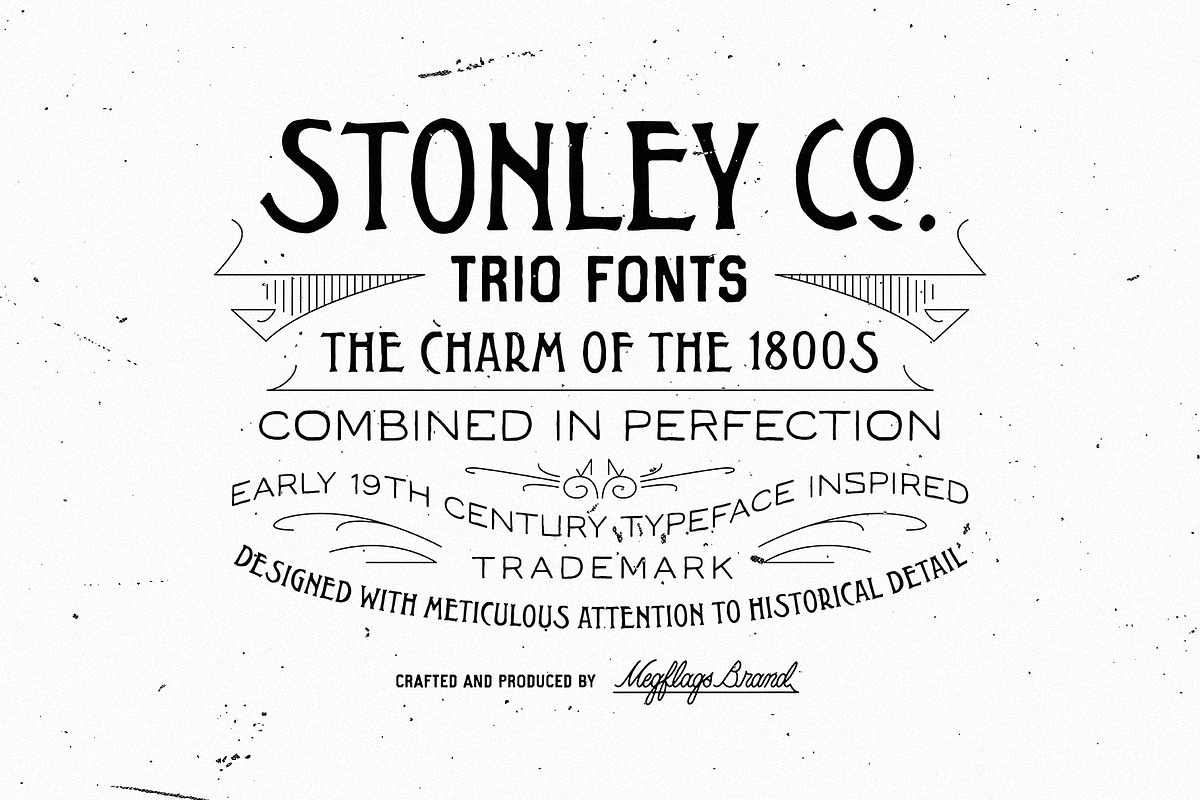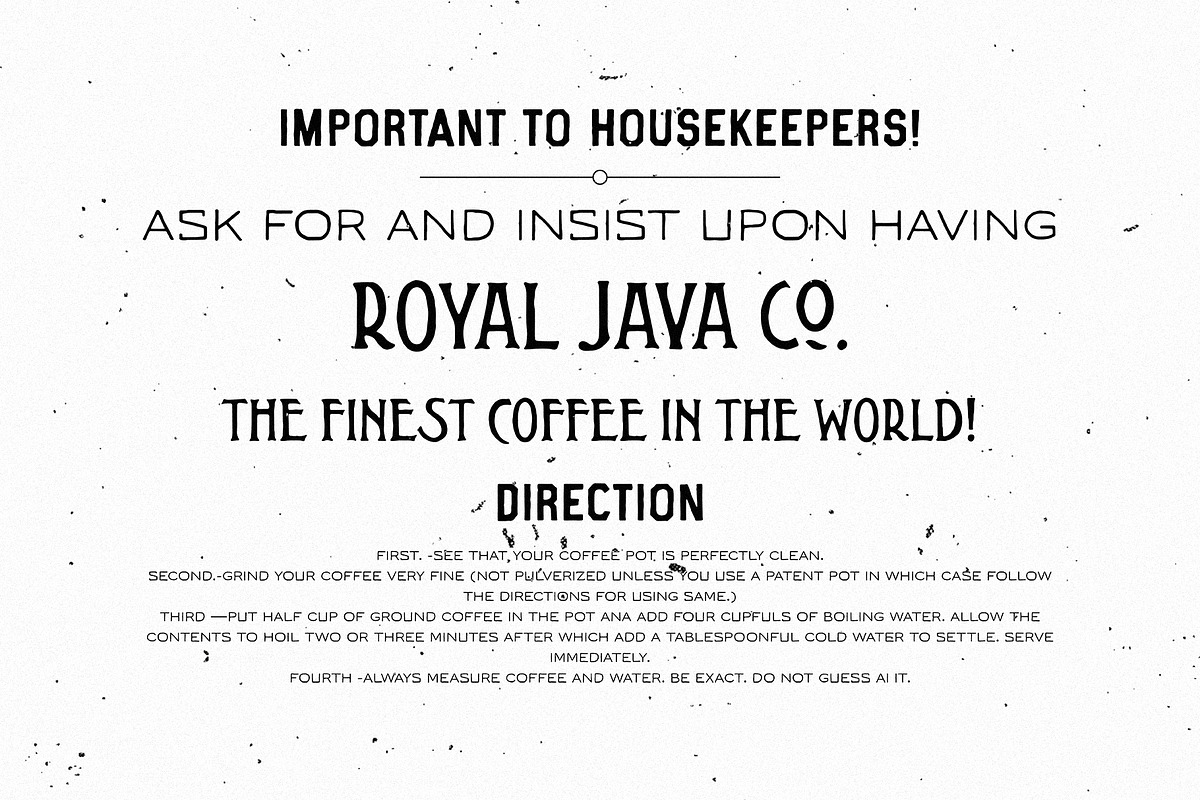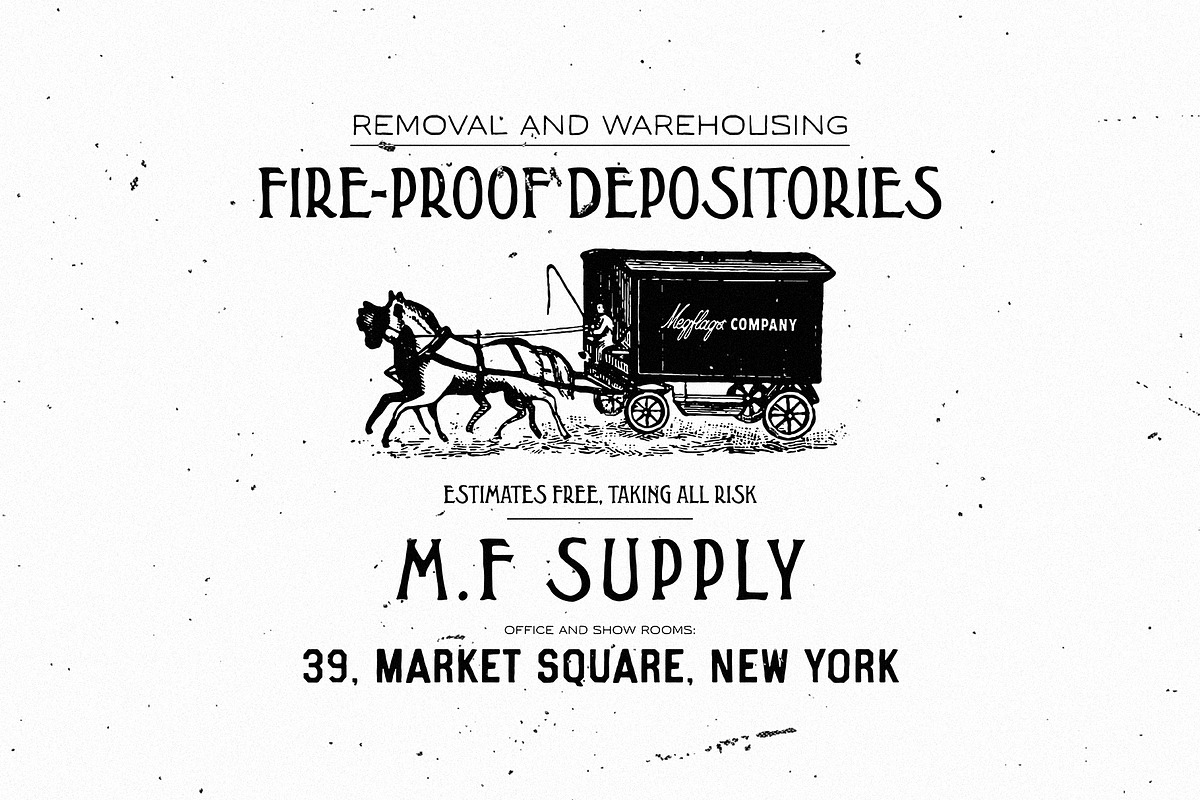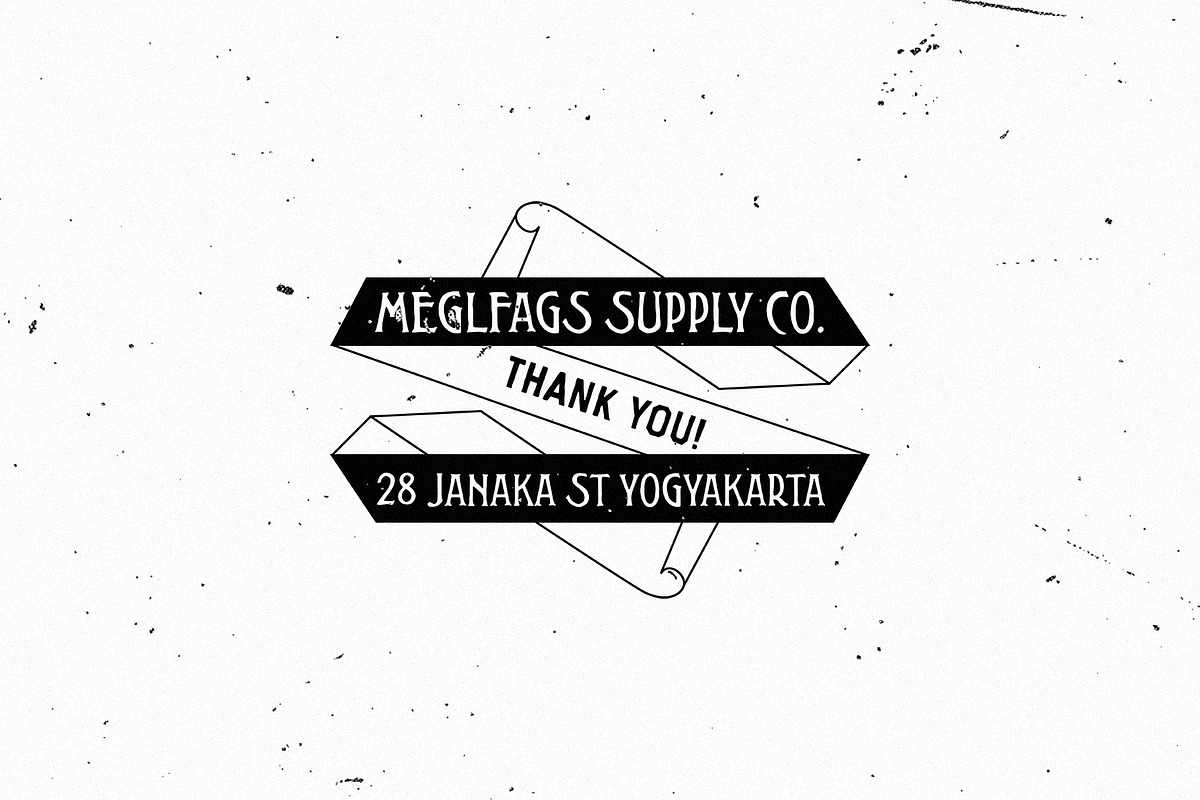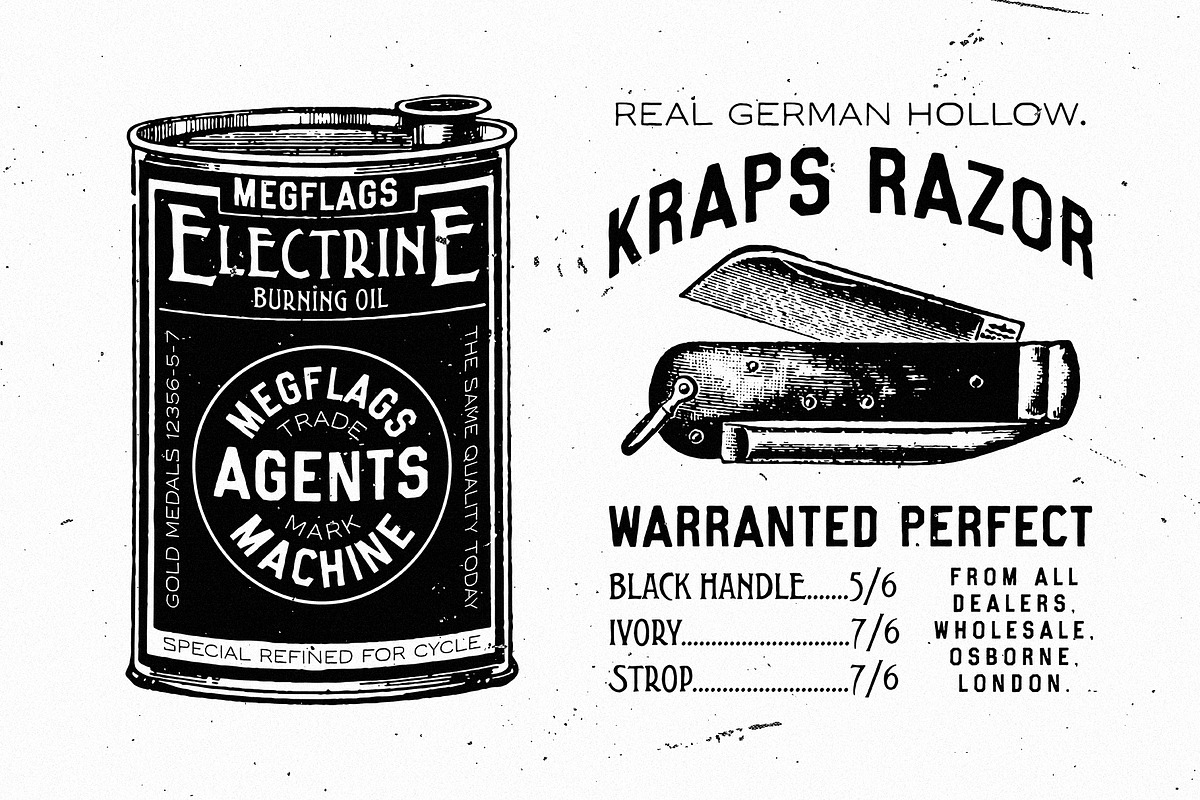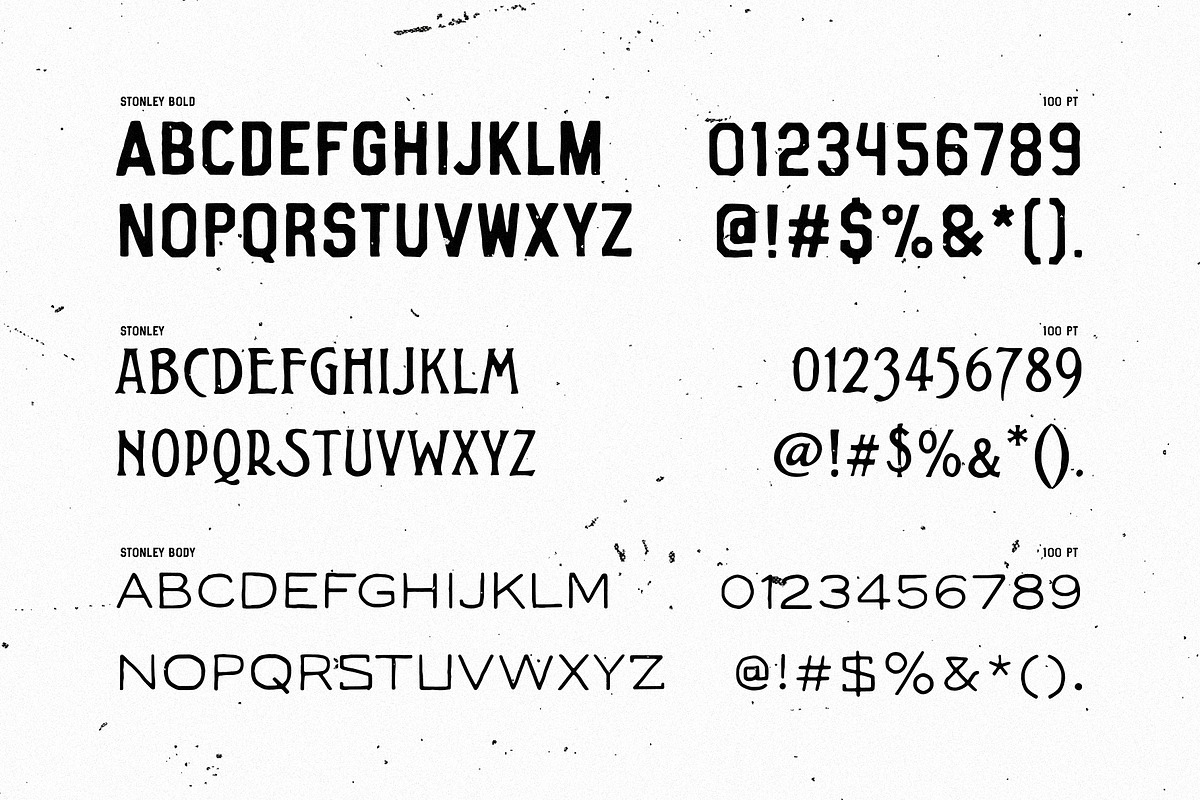
Stonley
A vintage-inspired typeface that captures of 1800's classic advertising and old-world craftsmanship. Designed with meticulous attention to historical detail, Stonley evokes the hand-lettered appeal found on antique posters, trade cards, and signage from the early 19th century. Features: Numerals & Punctuation Multilingual Support Alternates Alphabet